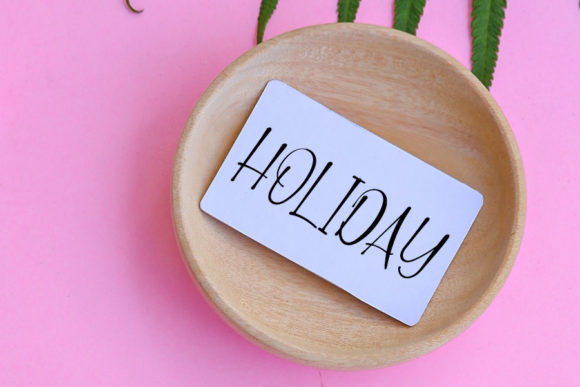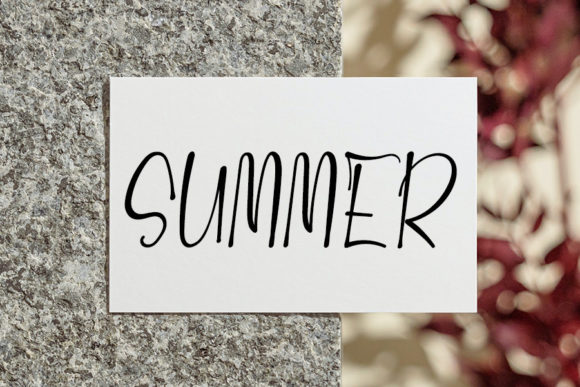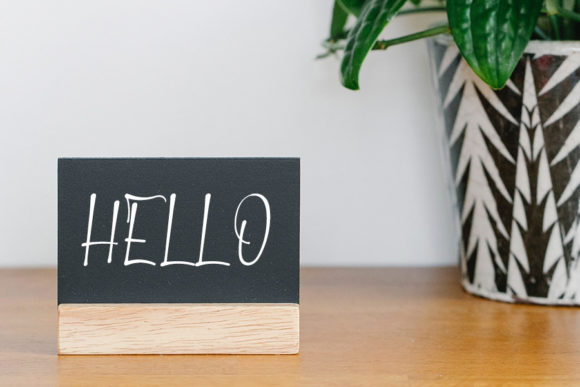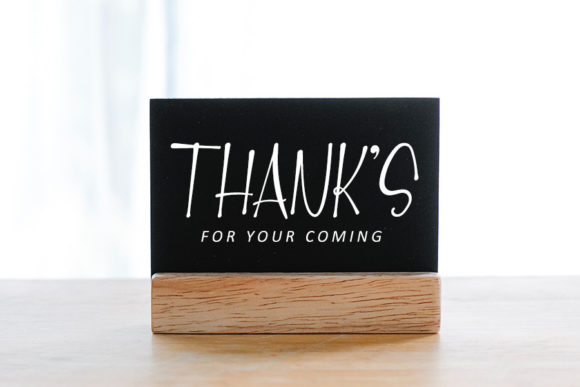
Paradise Font
“Paradise” epitomizes contemporary elegance with its trendy handwritten style, exuding a sense of sophistication and impeccable form reminiscent of timeless classic calligraphy. Whether you’re designing for print or digital platforms, this font adds a touch of class and refinement to any project, elevating its overall aesthetic appeal.
With its sleek lines and graceful curves, “Paradise” brings a modern twist to traditional calligraphy, making it a versatile choice for a wide range of design applications. From branding and advertising to invitations and product packaging, this font seamlessly integrates into various contexts, enhancing the visual impact of your creations with its timeless charm.
The versatility of “Paradise” extends to its ability to adapt to different design needs and themes. Whether you’re aiming for a minimalist look or a more elaborate design, this font offers the flexibility to complement your vision, ensuring that every detail is impeccably crafted to perfection.
Moreover, “Paradise” is designed for practicality as well as aesthetics, ensuring ease of use across different mediums and formats. Whether you’re writing product descriptions, designing labels, or creating promotional materials, this font maintains clarity and legibility, ensuring that your message is effectively communicated to your audience.
In addition to its suitability for design projects, “Paradise” also serves as a powerful branding tool, helping to establish a distinctive identity for your brand or business. Its elegant and contemporary style adds a touch of luxury and sophistication to your brand’s visual identity, making it memorable and recognizable to your target audience.
In conclusion, “Paradise” is more than just a font—it’s a versatile asset that empowers designers to create elegant and classy designs that leave a lasting impression. Its contemporary atmosphere and impeccable form, inspired by timeless classic calligraphy, make it the perfect choice for any design project that requires a touch of sophistication and refinement.